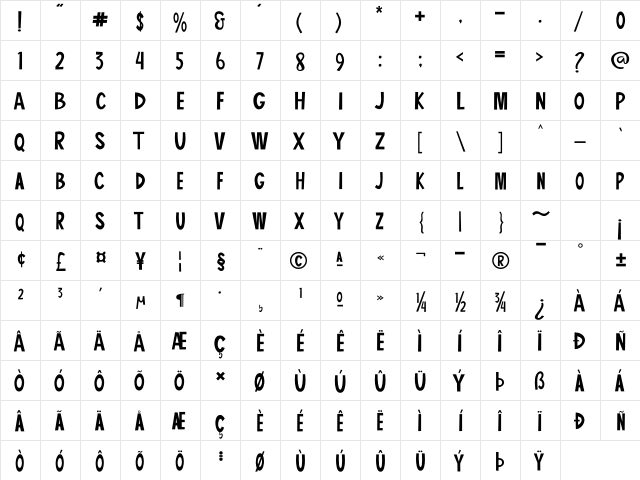
Barroomba Regular
Design Context for Barroomba Typeface
Barroomba offers clean, dependable letterforms without strong stylistic allegiance, making it a practical choice for designers who need flexibility.
Pro Tip: Use Barroomba in both headline and body roles to test its range before committing to a single application.